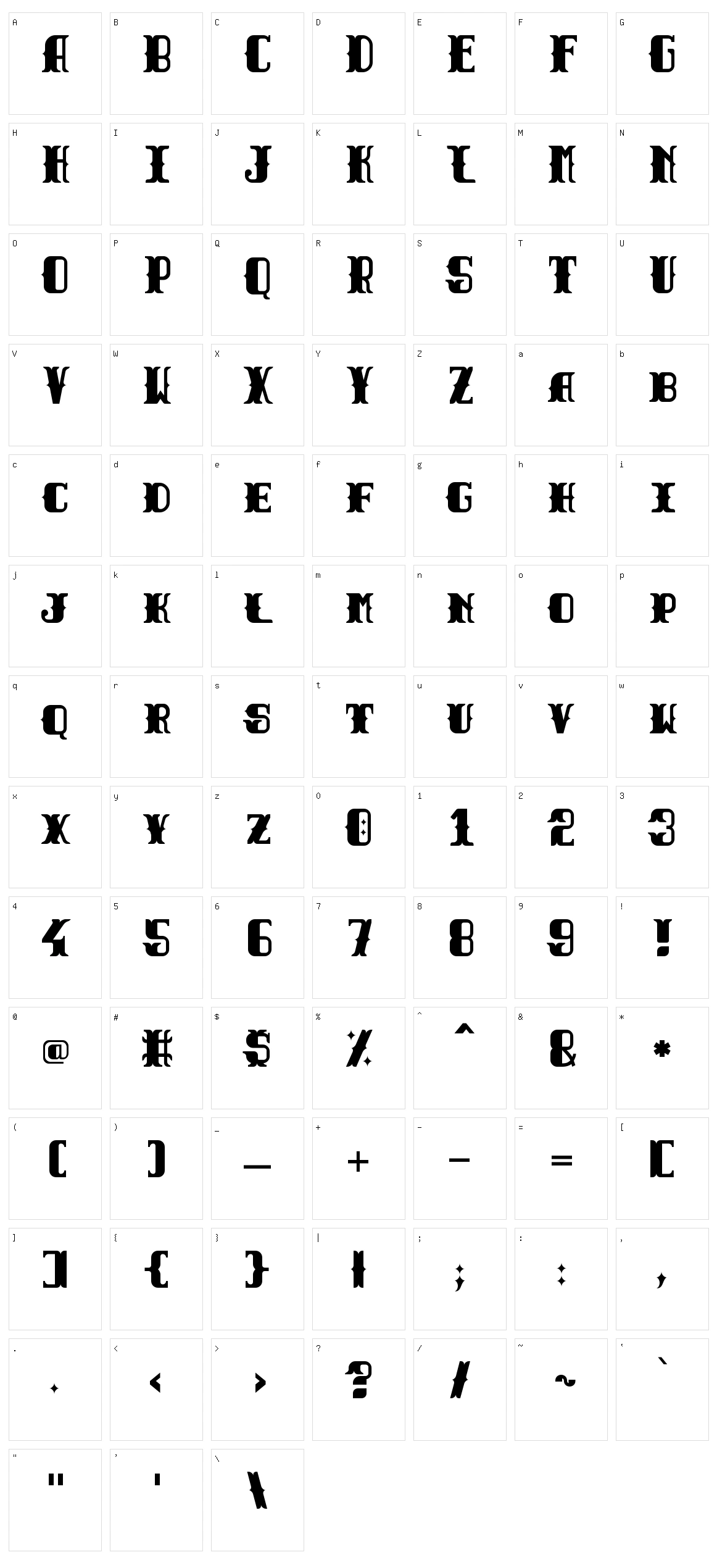
Tuscan Black:
A heavy American style font with bifurcated serifs and spikes in the middle.
This font started off as a geometrically constructed font with strict proportions until the design process took on a life of its own.
The result is an experimental almost modular style mixed with 19th century ornaments.